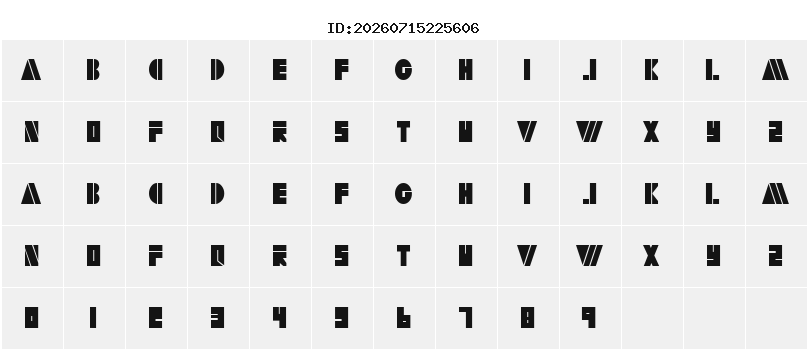
• Font Name: ArtyTimesReg52 ttcon
• Font ID: Altsys Metamorphosis:ArtyTimesReg52 Regular
• Full Font Name: ArtyTimesReg52 Regular ttcon
• Version: Altsys Metamorphosis:10/27/94
• PostScript Name: ArtyTimesReg52-Condensed
About ArtyTimesReg52 ttcon.ttf
ArtyTimesReg52 ttcon.ttf is a modern, elegant sans-serif font designed for ultimate readability and visual harmony. Perfect for branding, headlines, web design, and print materials.